27 Best tech logo fonts for SaaS and AI Startups in 2026
Creating a brand identity in the digital space requires a balance between legibility and innovation. In this article, we showcase 27 tech logo fonts that are dominating the industry in 2026, offering everything from minimalist aesthetics to bold, futuristic shapes. Whether you are launching a new app or rebranding a software company, these typefaces provide the professional look needed to compete in today’s market.
1. Motech Font
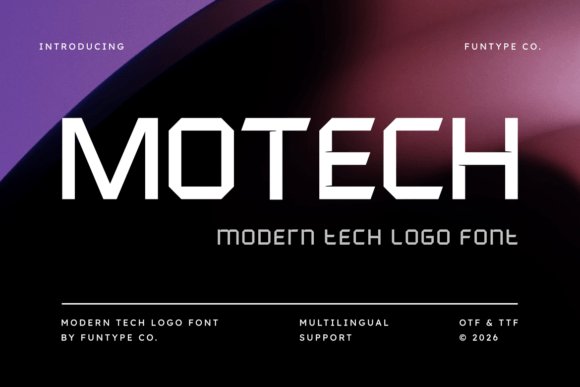
Motech stands out as a titan of modern geometry, offering a structural weight that feels both grounded and incredibly forward-thinking. Its sharp technical lines are meticulously crafted to convey a sense of reliability and architectural precision. This makes it an exceptional choice for industrial startups or software engineering firms that want to project a sense of stability and advanced engineering through their visual identity.
Beyond its primary aesthetic, the font provides extensive versatility through its multilingual support and clean, high-impact legibility. Whether you are designing large-scale digital billboards or minimalist app interfaces, the font’s refined proportions ensure that every character commands attention without overwhelming the viewer. It successfully bridges the gap between traditional sans-serif accessibility and the cutting-edge requirements of twenty-first-century digital interfaces.
My Recommendation: I would lean toward Motech for hardware manufacturers or fintech platforms because it has a ‘built-to-last’ quality. The thick, unwavering strokes really build trust with the audience while maintaining a sleek, modern edge.
2. Arcades Rivalries Font
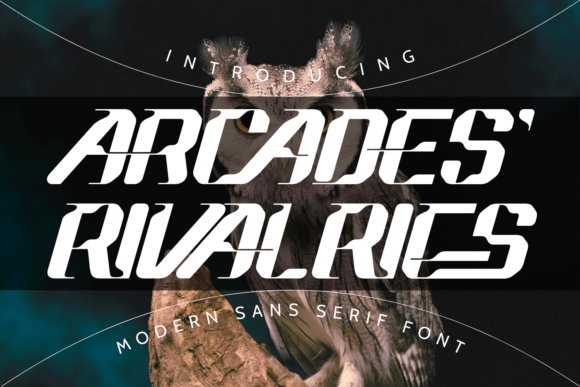
Arcades Rivalries captures the high-octane energy of the gaming world and translates it into a sophisticated sci-fi aesthetic. As one of the more versatile tech logo fonts available, it leans heavily into a futuristic look that feels right at home in the competitive esports scene or high-performance automotive branding. The inclusion of unique ligatures allows designers to customize letter pairings, creating bespoke wordmarks that look custom-made for the next big indie game or virtual reality experience.
This typeface isn’t just about sharp angles; it’s about creating a narrative of speed and innovation. The sans-serif base maintains readability while the stylized flourishes add a layer of hi-tech complexity. It is particularly effective for movie posters or event branding where you need to communicate a sense of a distant, more advanced timeline, making it a staple for anyone building a modern advertising campaign around technology.
My Recommendation: The ligatures are a massive asset here, allowing you to create really distinctive logos for streamers or tech startups. It hits that perfect sweet spot between readable and experimental that sci-fi projects often require.
3. Vanker Font
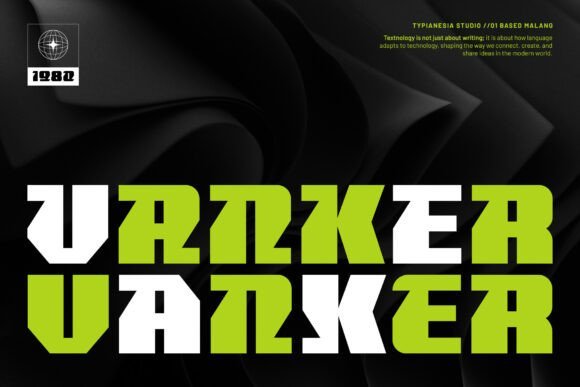
When your project demands a dominant presence, Vanker delivers a bold, display-oriented solution that echoes the vastness of deep space and the precision of digital circuits. This typeface is specifically engineered for high-intensity visuals, making it a top-tier choice among tech logo fonts for developers creating sci-fi game titles or aggressive marketing campaigns. Its geometric construction is thick and heavy, ensuring that headlines remain legible even against complex, textured backgrounds often found in cinematic art.
The beauty of Vanker lies in its unapologetic boldness. It doesn’t just sit on the page; it claims the space, making it perfect for brand identities that need to signal a cutting-edge, future-focused mission. From high-energy game interfaces to corporate tech identities, this font provides a sense of power and momentum that helps a brand stand out in a saturated digital landscape, ensuring your message is both dominant and future-proof.
My Recommendation: Use Vanker when you want your message to feel like a command rather than a suggestion. It’s perfect for hero sections on websites or heavy-hitting cinematic titles where visual impact is the absolute highest priority.
4. Glide Sans Font
Glide Sans represents a masterclass in geometric stability, offering a robust visual framework that resonates with modern digital identities. By prioritizing balanced stroke widths and expansive apertures, this typeface achieves a level of clarity that is often missing in bolder sans-serifs. It is specifically engineered to function as one of those essential tech logo fonts that can scale from a high-resolution favicon to a massive physical billboard without losing its structural integrity or professional tone.
The font’s contemporary aesthetic is defined by its lack of superfluous ornamentation, favoring a sleek, streamlined look that mirrors the efficiency of high-performance software. Its bold weights are particularly effective for creating a sense of authority and reliability, making it an excellent candidate for corporate branding where trust and innovation must be communicated simultaneously. Whether applied to app interfaces or editorial layouts, its harmonious proportions ensure that the text remains legible and engaging across all screen resolutions.
My Recommendation: Use this font if you want your project to feel fast and cutting-edge. It has an energetic, high-performance vibe that makes it perfect for e-sports branding, automotive startups, or any business that wants to project a sense of speed and momentum.
Selecting the right typography is a foundation of great design. With these 27 tech logo fonts at your disposal, you can create a memorable and scalable brand image for 2026. Take your time to test different weights and styles to find the perfect match for your technology venture.